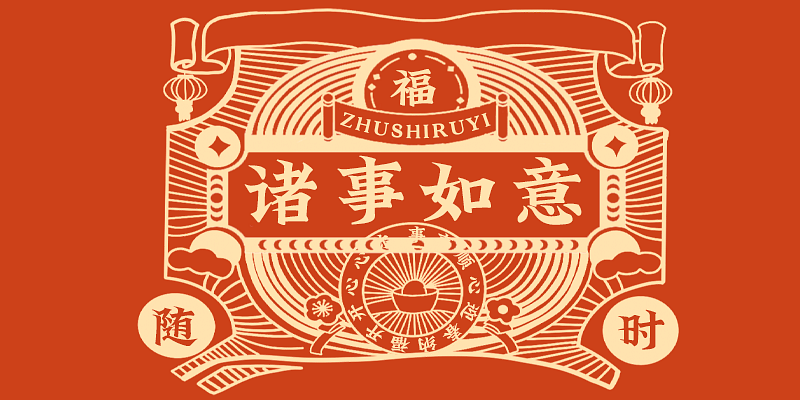
HelloFont ID Jiang Hu Ti Font Free Download
HelloFont ID Jiang Hu Ti Font Free Download is a bold and expressive Chinese-inspired typeface that captures the essence of traditional brush strokes with a modern twist. Featuring strong, angular characters and dynamic proportions, this font is ideal for impactful headlines, logo designs, posters, and cultural-themed projects that aim to evoke a sense of strength and heritage.
With its powerful stroke details and unique form, HelloFont ID Jiang Hu Ti brings a touch of artistic energy to your typography. It’s perfect for designs that need to stand out while conveying a deep connection to cultural traditions and bold visual expression.